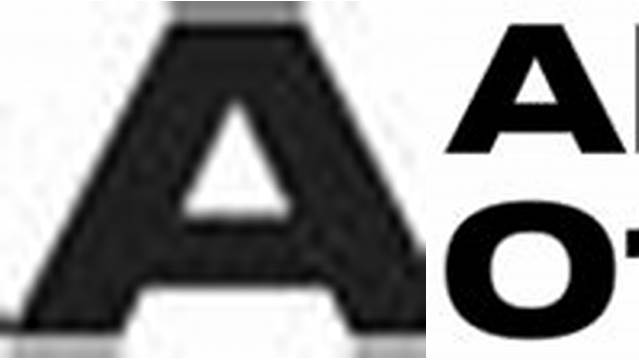
Hey everyone! 👋 Are you on the hunt for a bold and impactful font to spice up your design projects? Look no further! Today, we're diving deep into the Shapiro 75 Heavy Extd font, a fantastic choice for grabbing attention and making a statement. We'll explore where you can snag a Shapiro 75 Heavy Extd font free download, what makes this font so special, and how you can use it to create stunning visuals. So, buckle up, design enthusiasts! Let's get started!
What is Shapiro 75 Heavy Extd Font?
First things first, what exactly is the Shapiro 75 Heavy Extd font? Well, it's a heavy, extended sans-serif typeface known for its strong presence and readability. Imagine a font that's thick, stretched out horizontally, and demands to be noticed. That's Shapiro 75 Heavy Extd in a nutshell. This font is perfect for headlines, titles, and any design element where you want to make a significant visual impact. Its bold weight and extended width make it incredibly eye-catching, ensuring your message stands out from the crowd. Whether you're working on a poster, a website banner, or a social media graphic, this font will undoubtedly grab your audience's attention.
Moreover, the Shapiro 75 Heavy Extd font isn't just about aesthetics; it's also about functionality. Despite its bold appearance, it maintains excellent readability, especially when used in larger sizes. This makes it a great choice for conveying important information without sacrificing visual appeal. This font is a real workhorse, able to handle a variety of design tasks. The font's versatility is another major selling point. It works well in various contexts, from tech to fashion, sports to entertainment. You can use it to evoke a sense of power, modernity, or even a touch of retro flair, depending on how you use it. The bold, extended design is not only attractive but also practical, making it a popular choice for professional designers and amateur enthusiasts. This font makes a statement, and it does it with style and grace.
The versatility of the Shapiro 75 Heavy Extd font extends beyond its aesthetic qualities. Its robust design ensures that it is easily adaptable to various platforms and applications. This font won't break your design, no matter what you use it for. Whether you're a seasoned graphic designer or just starting, you'll appreciate the ease with which this font can be integrated into your projects. Its clean lines and distinctive shape make it instantly recognizable. When considering a font for your projects, the Shapiro 75 Heavy Extd is a good one to consider. This adaptability is especially useful in today's digital landscape, where designs are frequently shared across multiple platforms and devices. By choosing this font, you can be sure that your message will be effectively conveyed, no matter where it appears. This font helps you create designs that are both visually appealing and functionally sound.
How to Use the Shapiro 75 Heavy Extd Font in Your Designs
- Headlines and Titles: This font is a natural fit for headlines and titles. Its bold, extended design instantly grabs attention and makes your message stand out. Whether it's for a website, a poster, or a social media graphic, this font will deliver.
- Logos and Branding: Consider using this font (or a similar one) for your logo or brand identity, especially if you want to project a sense of strength, modernity, or boldness. Just make sure the font aligns with your brand's overall aesthetic.
Conclusion: Unleash Your Creativity with Shapiro 75 Heavy Extd
So there you have it, guys! 🎉 The Shapiro 75 Heavy Extd font (and its alternatives) is an incredible tool for designers looking to make a bold statement. From finding a Shapiro 75 Heavy Extd font free download to using it effectively in your designs, this guide has covered everything you need to know. Whether you're a seasoned pro or just starting, this font can help you level up your designs. Don't be afraid to experiment, get creative, and most importantly, have fun! Happy designing!